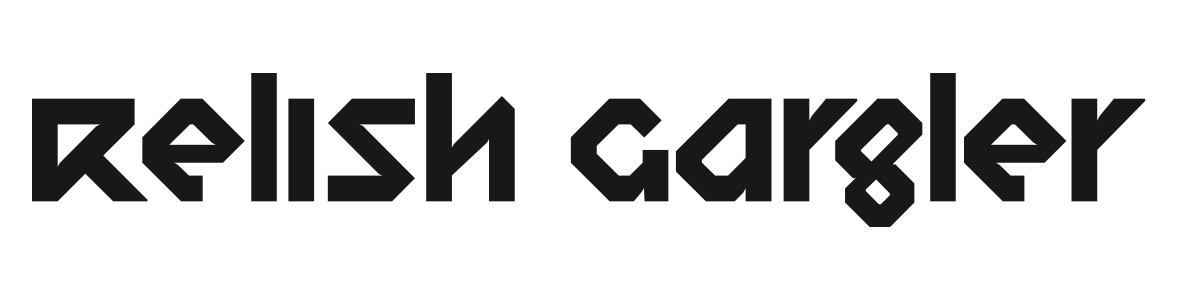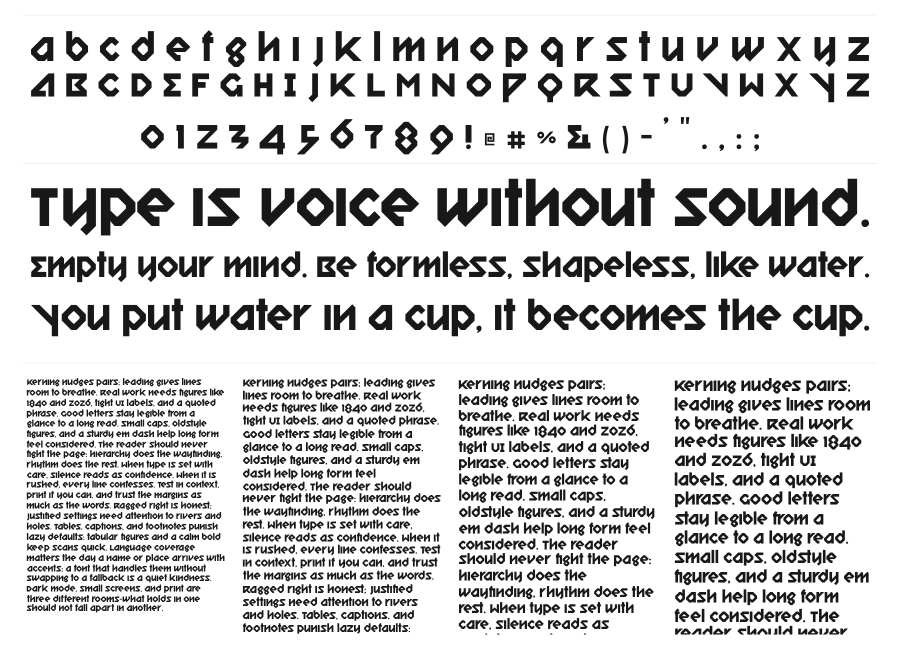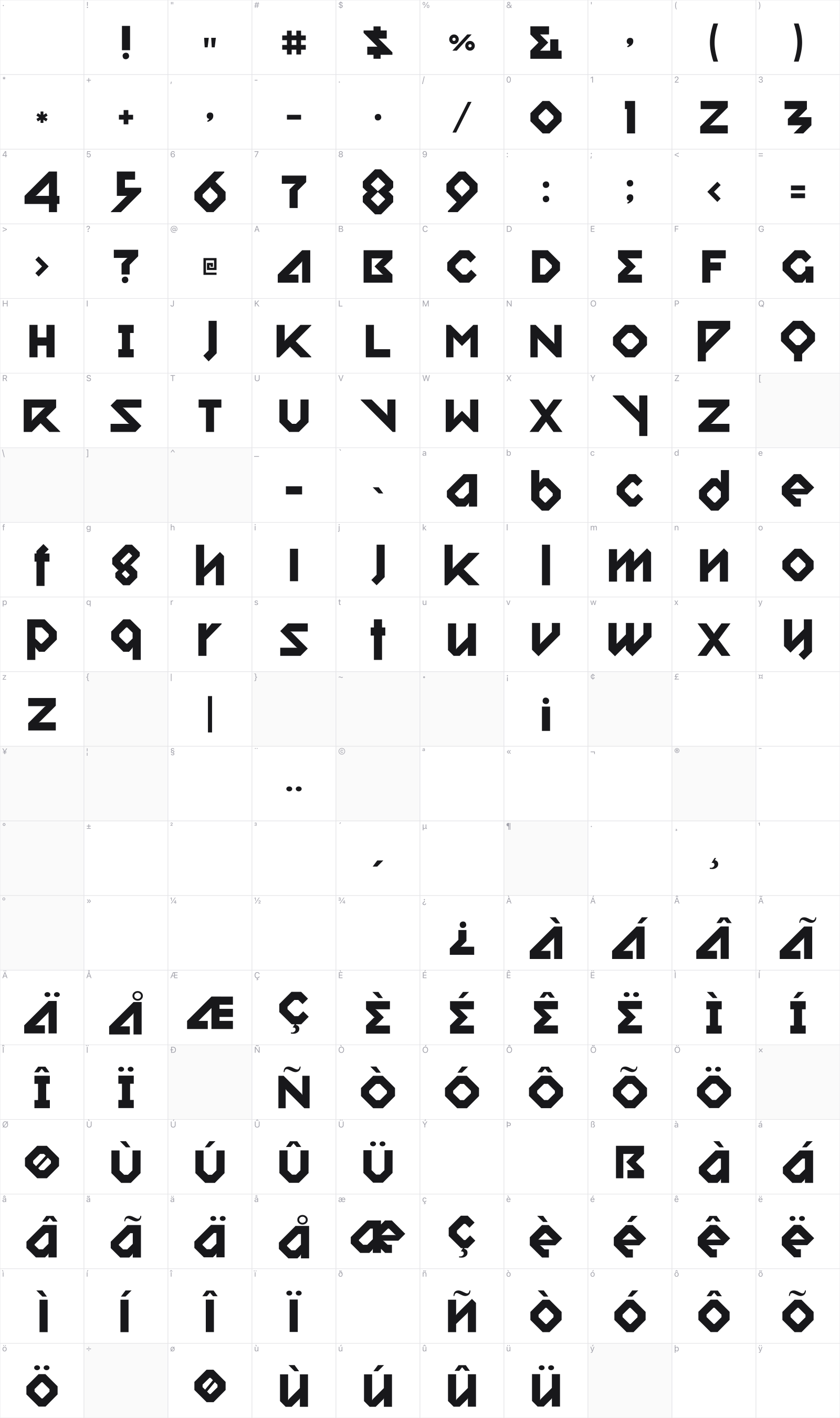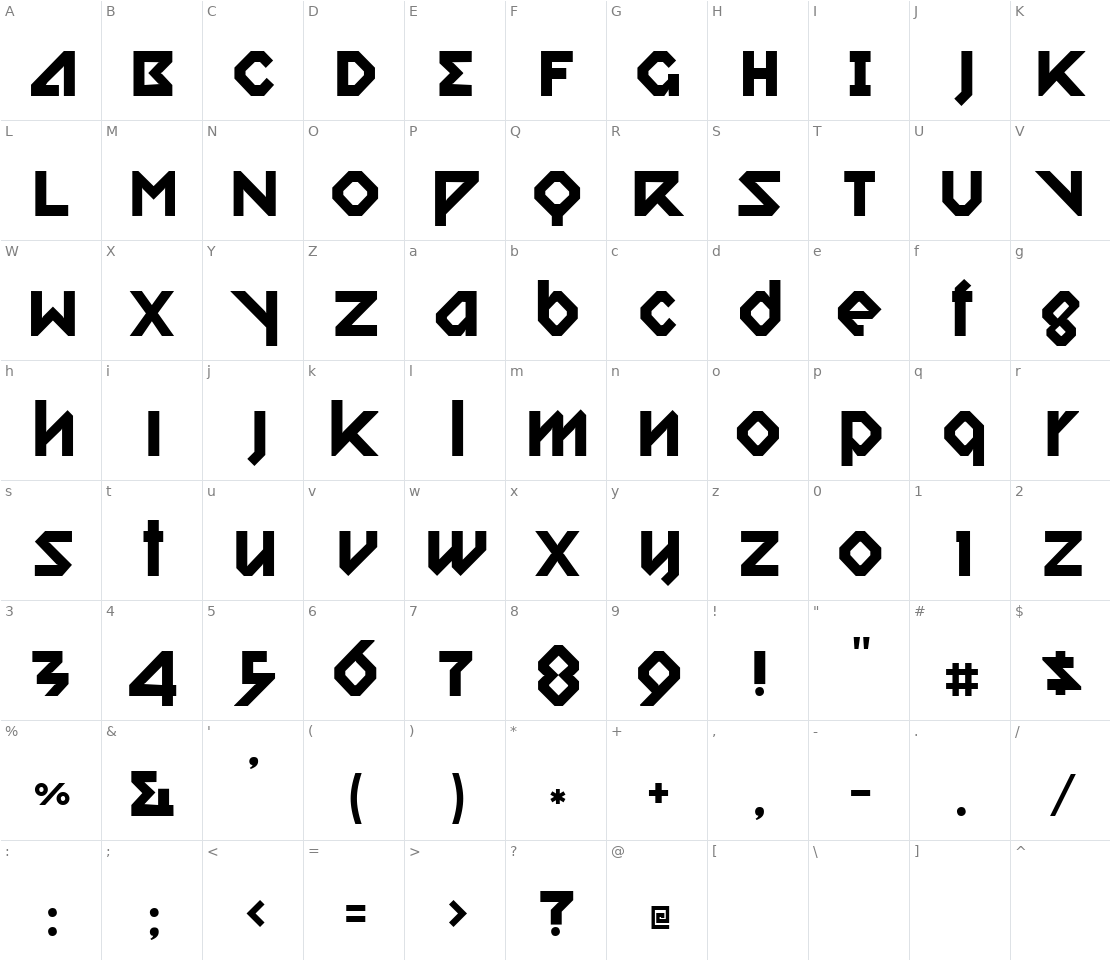
Relish Gargler
Relish Gargler is a heavy geometric display face from Ray Larabie with angular, bevel-cut strokes that channel blackletter aggression through a modern sans structure. The wide, blocky proportions and flat diagonal chops give it a distinctly underground, late-90s energy. It reads loud at headline sizes, at home on album covers, poster headings, and band logos.